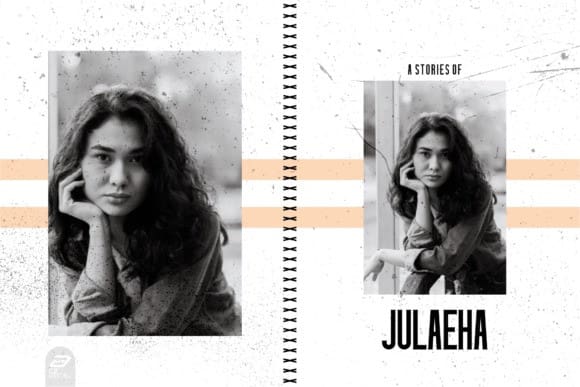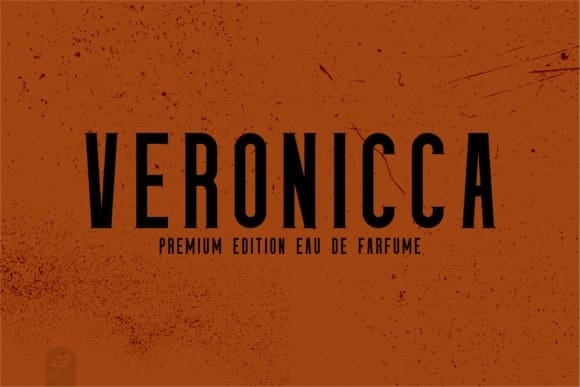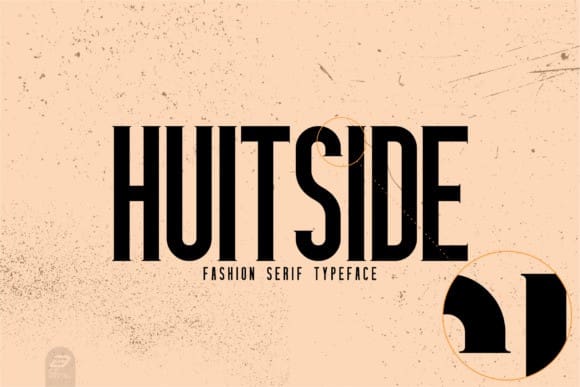
Huitside Font
Huitside Font is a bold and thick lettered serif font. This font is imposing and features uniquely shaped letters, and as a result, it will easily match a wide range of creations that require a distinct touch.